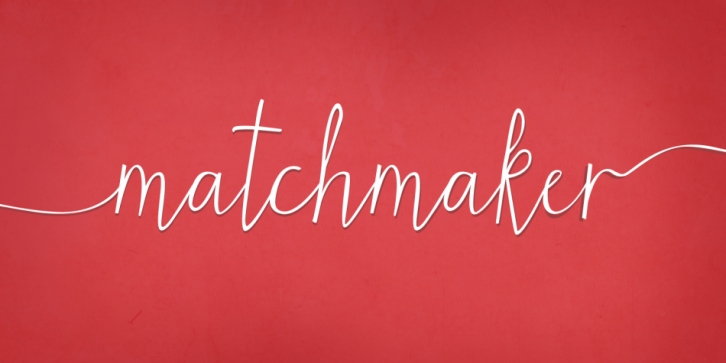
Matchmaker is a hand drawn and script font published by Angie Makes.
Matchmaker, a modern calligraphy typeface, was inspired by the various works of modern day calligraphers. Its tall, quirky, and juxtaposed letterforms provide a deviation from traditional calligraphy-inspired typefaces. Matchmaker features smart contextual alternates and swashes that add to the front and beginnings of letters (try using + + + on the end and = = = on the beginning of lowercase letters to see the feature in action). Also watch as letters on the end of words magically receive a shortened tail.
Chocked full of swashes, alternates, and ordinals, Matchmaker just might be the perfect match for your next project.